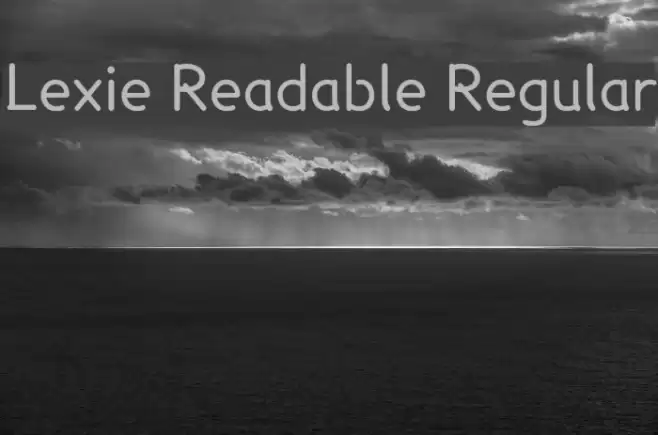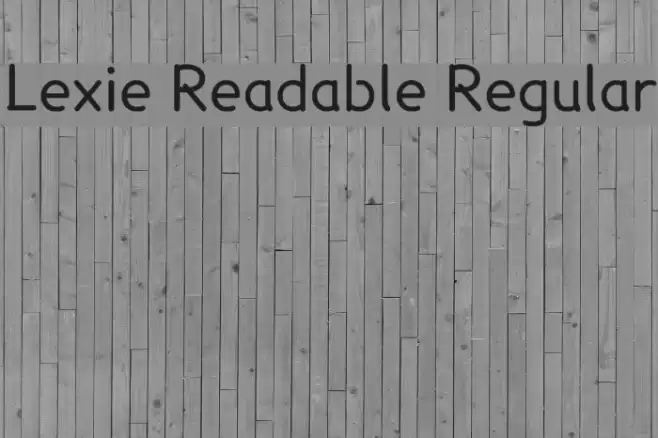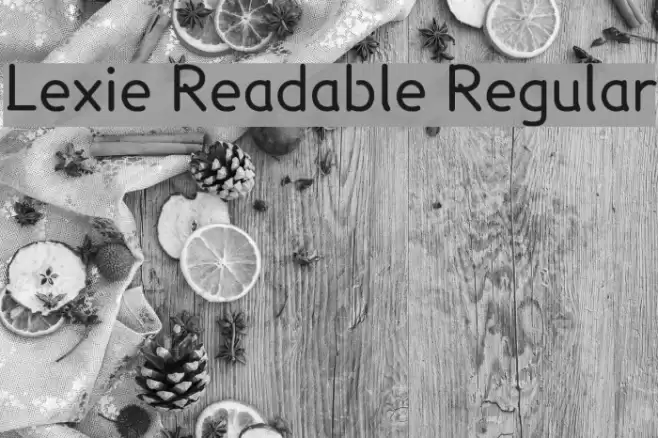
Lexie Readable Regular Font
Lexie Readable Regular Description
This font features a clean and modern sans-serif design, characterized by its rounded edges and uniform stroke width. The letters are well-spaced, enhancing readability and making it suitable for various digital and print applications. Its simplicity and clarity are complemented by a slightly playful touch, evident in the gentle curves of certain characters. The numerals and special characters maintain the same aesthetic, ensuring consistency across all text elements. This font is versatile, offering a friendly yet professional appearance that can adapt to numerous contexts.
A clean, modern sans-serif font with rounded edges and uniform strokes from Uncategorized fonts.
- Proposed Projects: Ideal for user interfaces, educational materials, children's books, and websites requiring high readability.
- Use Case: Body text, User interfaces, Educational materials